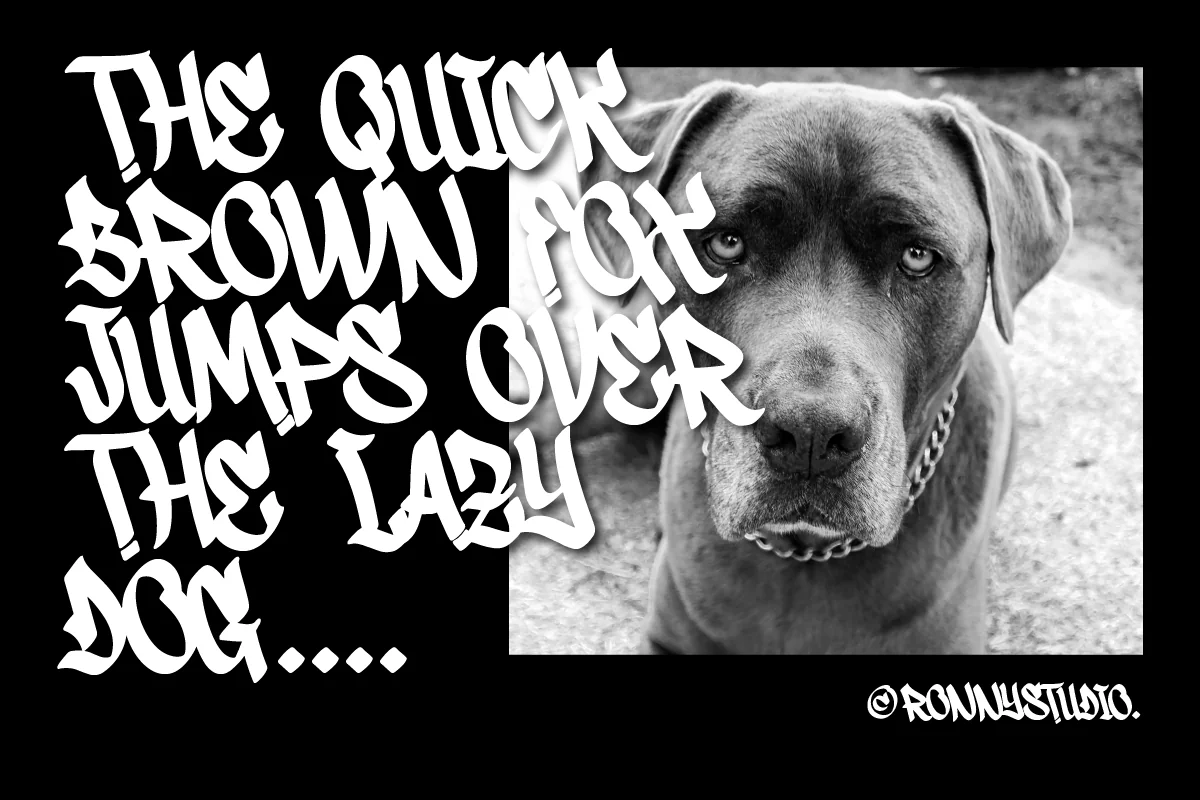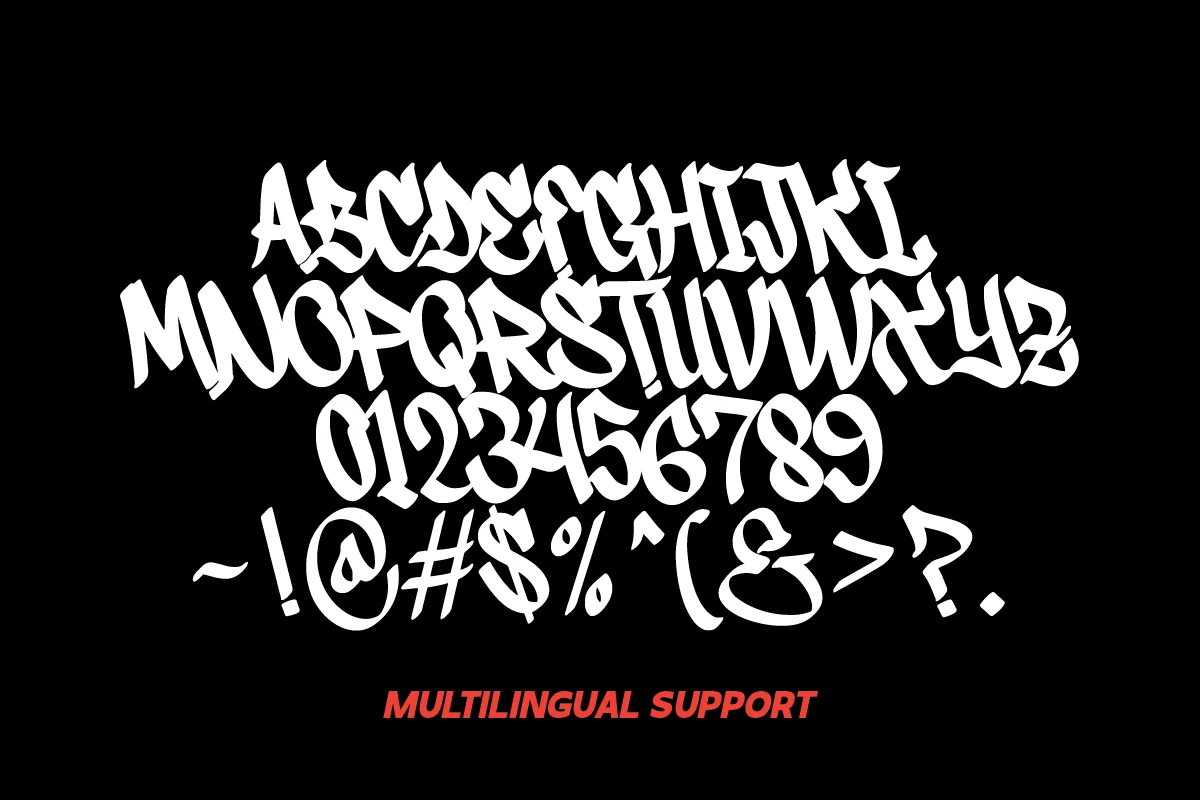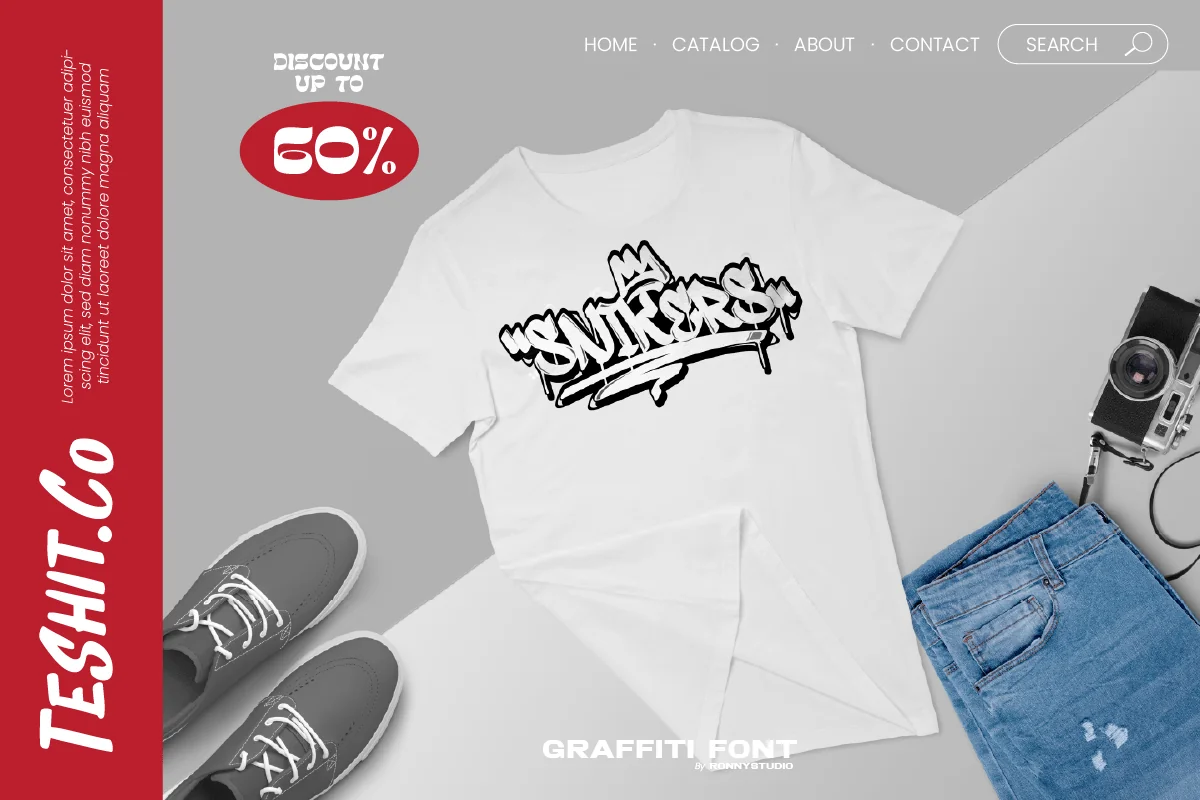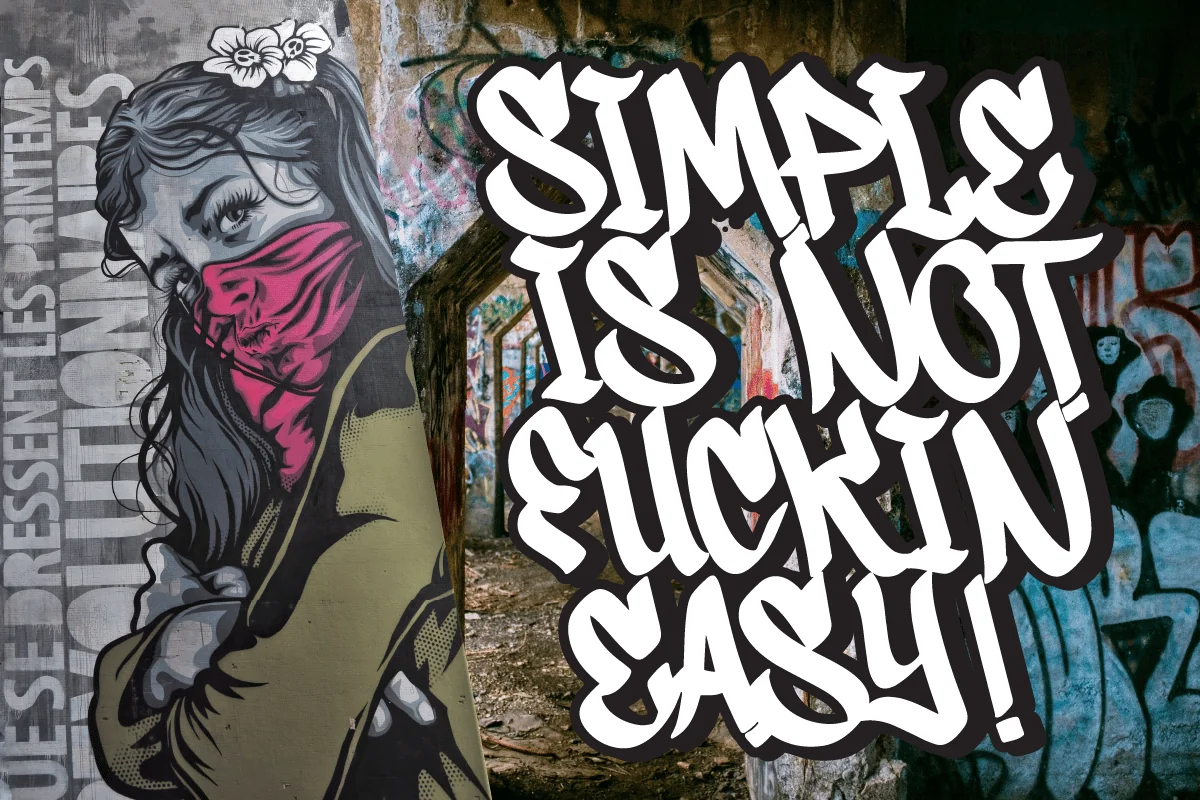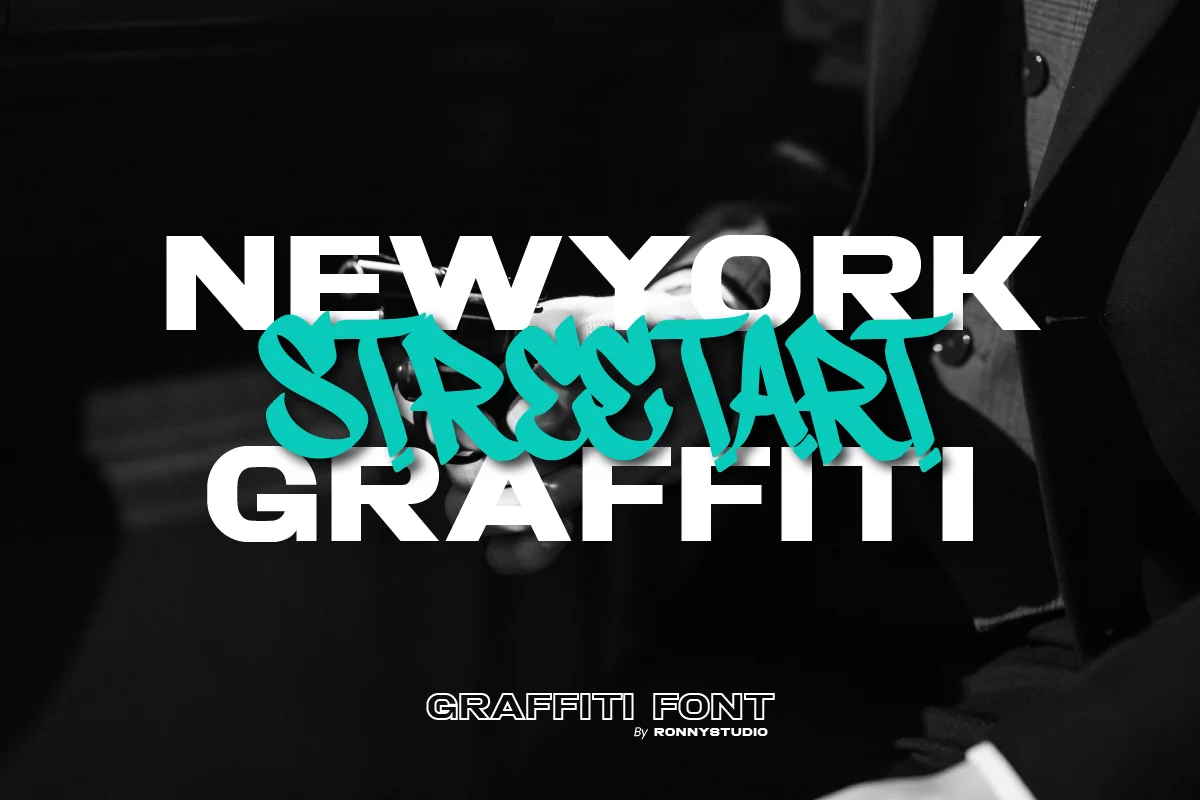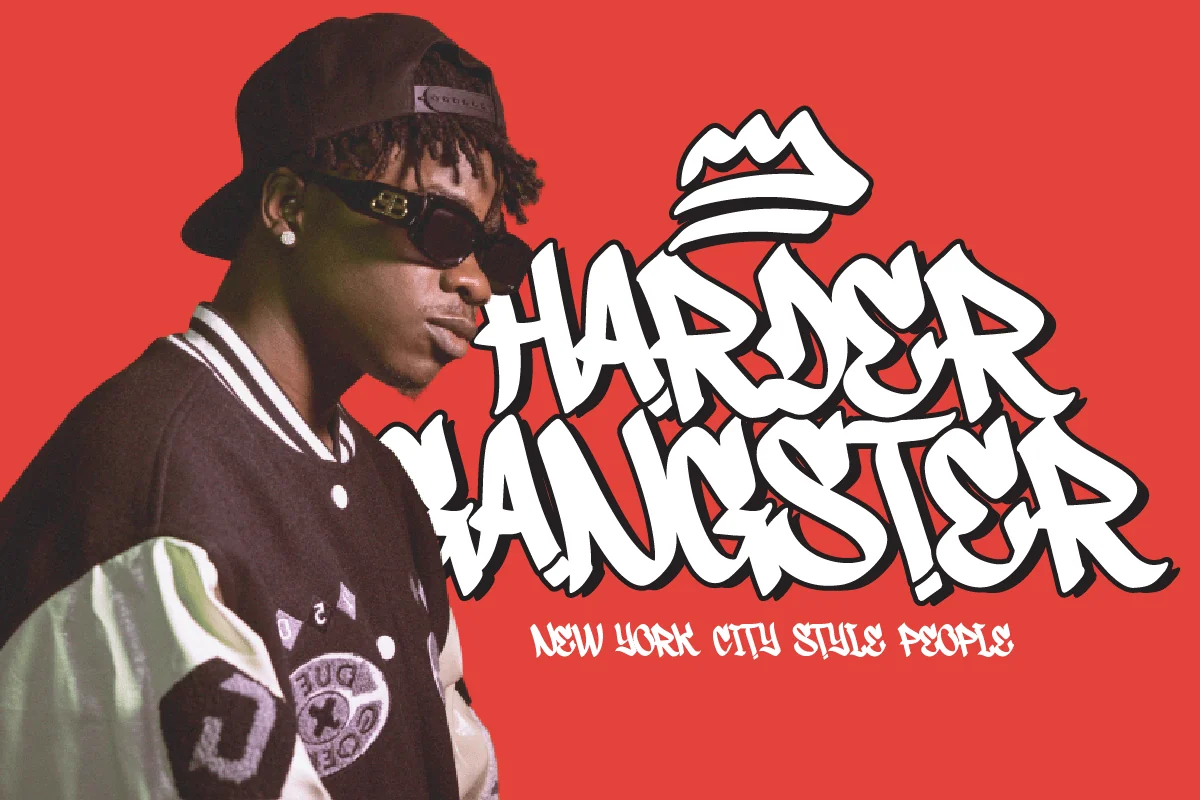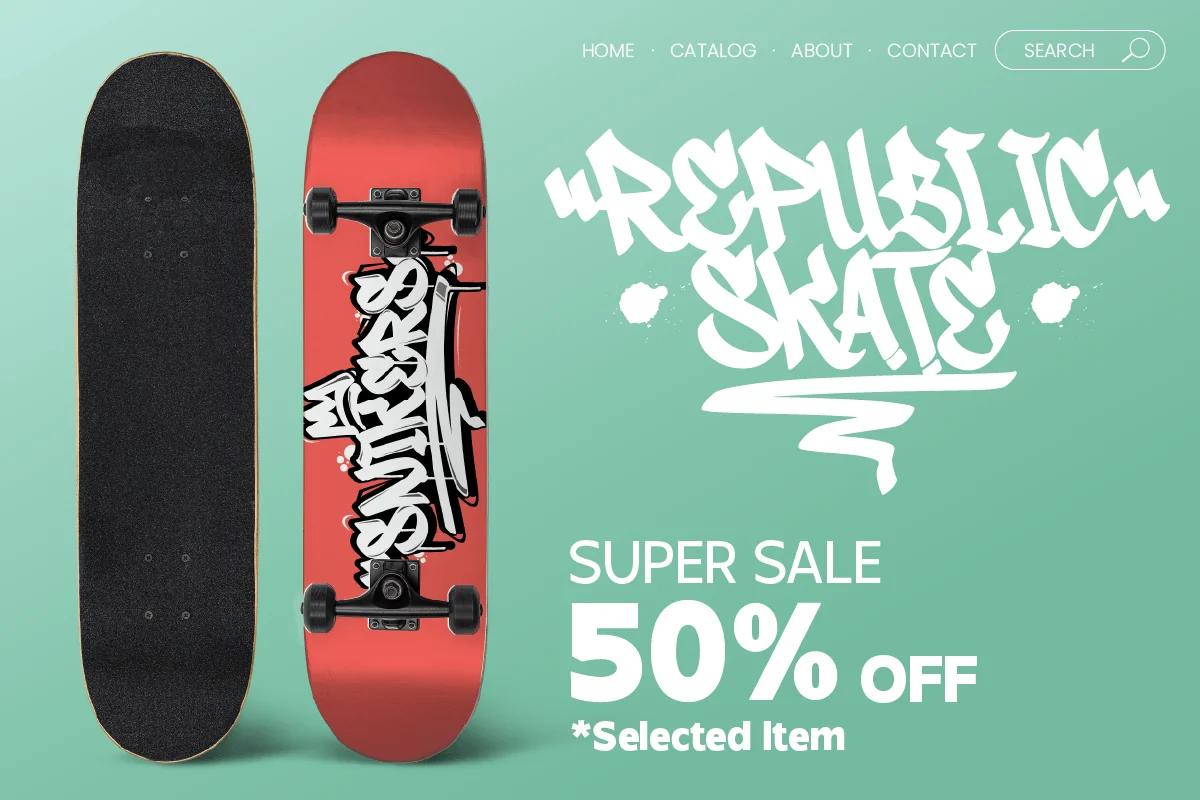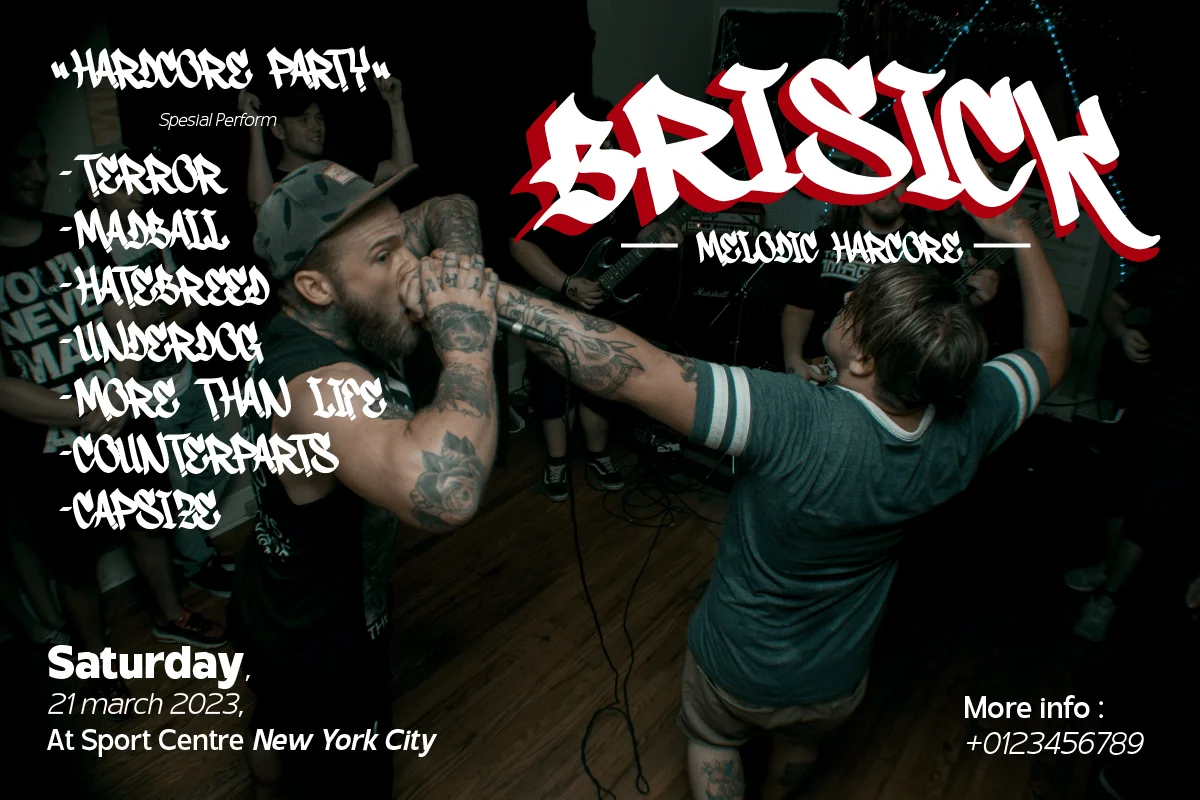
Snikers – Urban Graffiti Font
Snikers Inspired by the realistic calligraphy marking style in many big cities. This style is bolder and easier to read, perfect for your “street art” design style. I incorporate real graffiti experience into computer fonts, I think it will be different to other fonts if you can feel it, because I draw graffiti, mark and throw up since I was in high school.
All Caps
numbers and punctuation
multilingual
Swash / Ornament